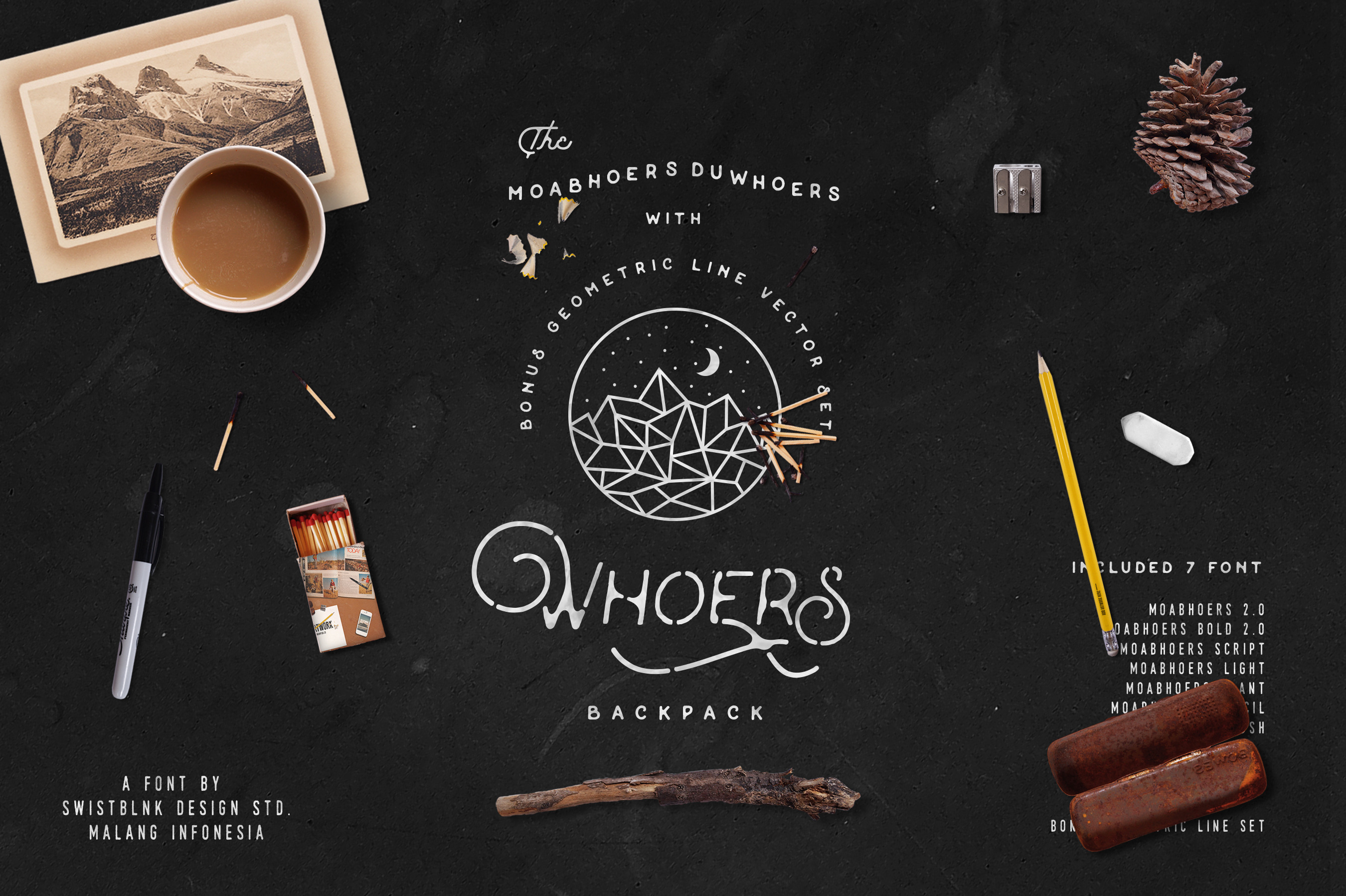
The Doewoers Font Bundle
Moabhoers Duwhoers Backpack is fontpack contain 7 Modern Vintage Fonts plus Bonus Geometric Line Vector Set.
- Moabhoers Regular 2.0
- Moabhoers Light
- Moabhoers Bold 2.0
- Moabhoers Slant
- Moabhoers Stencil
- Moabhoers Script
- Duwhoers Brush
- 40 Geometric Line Vector Set
Opentype Features Ready for some fonts, Stylistic Sets, Swash, Contextual Alternates etc. OpenType features with Stylistic Alternates, Contextual Alternate in some characters that allows you to mix and match pairs of letters to fit your design. To access the alternate glyphs, you need a program that supports OpenType features such as Adobe Photoshop CC, Adobe Illustrator CS/CC and Adobe Indesign.